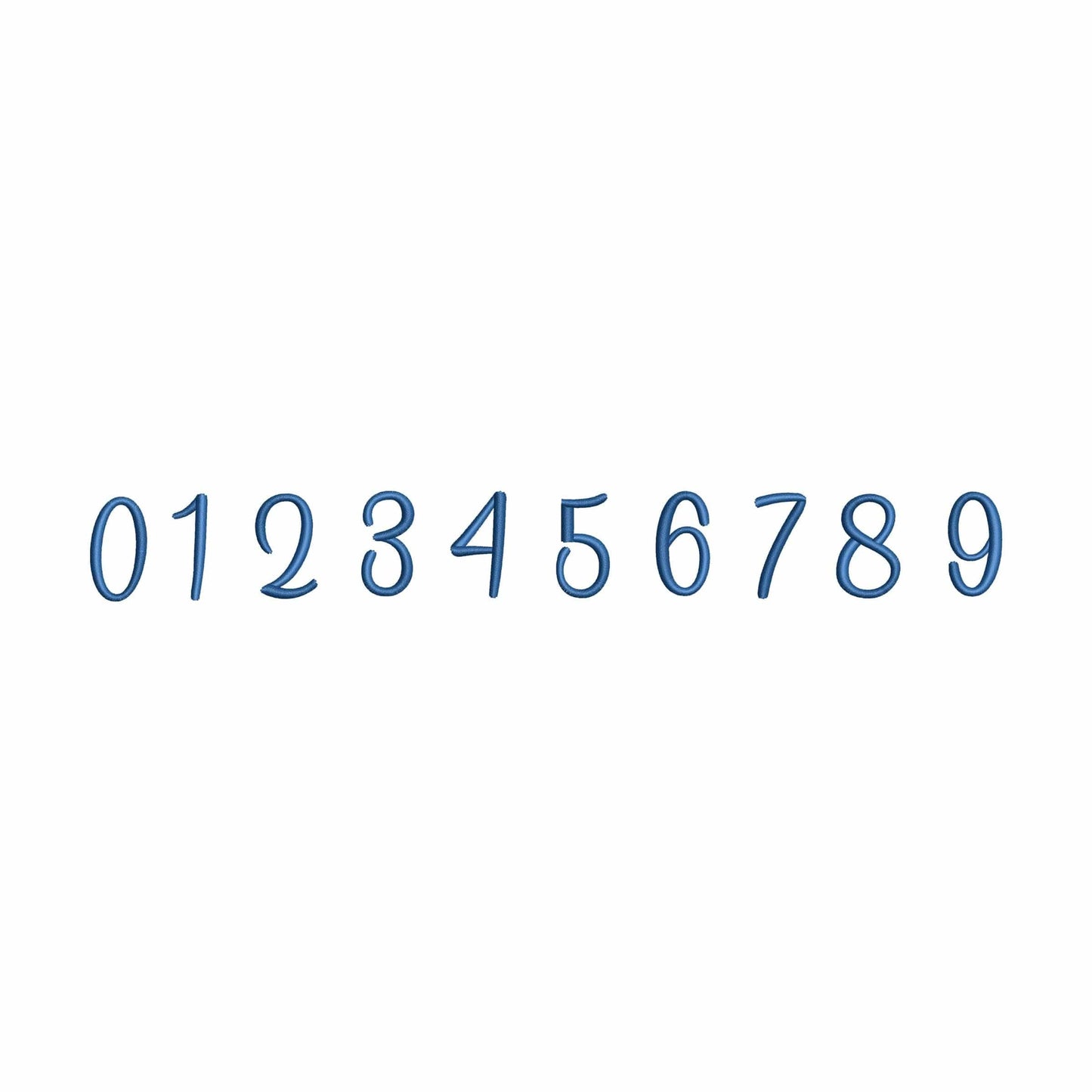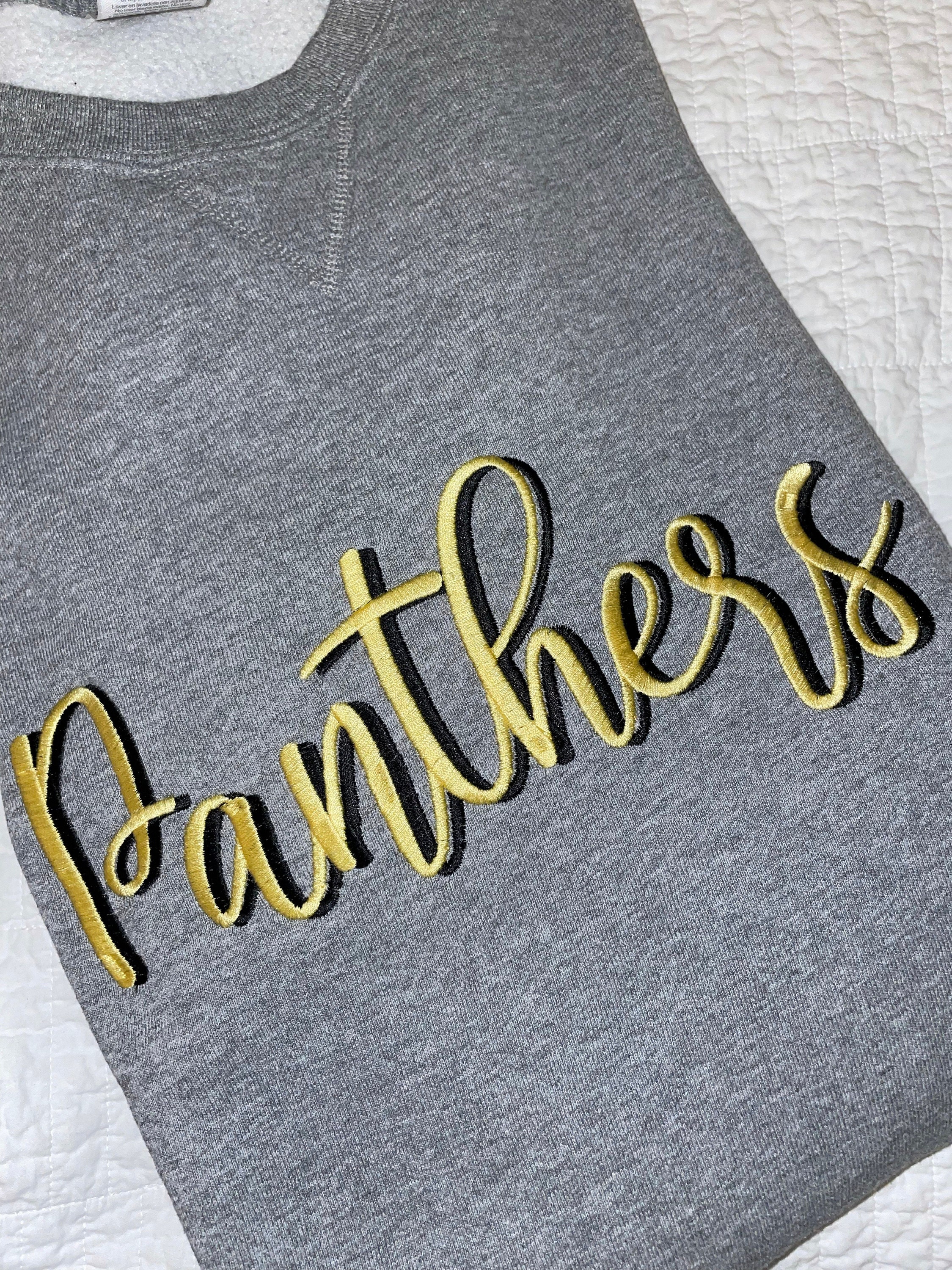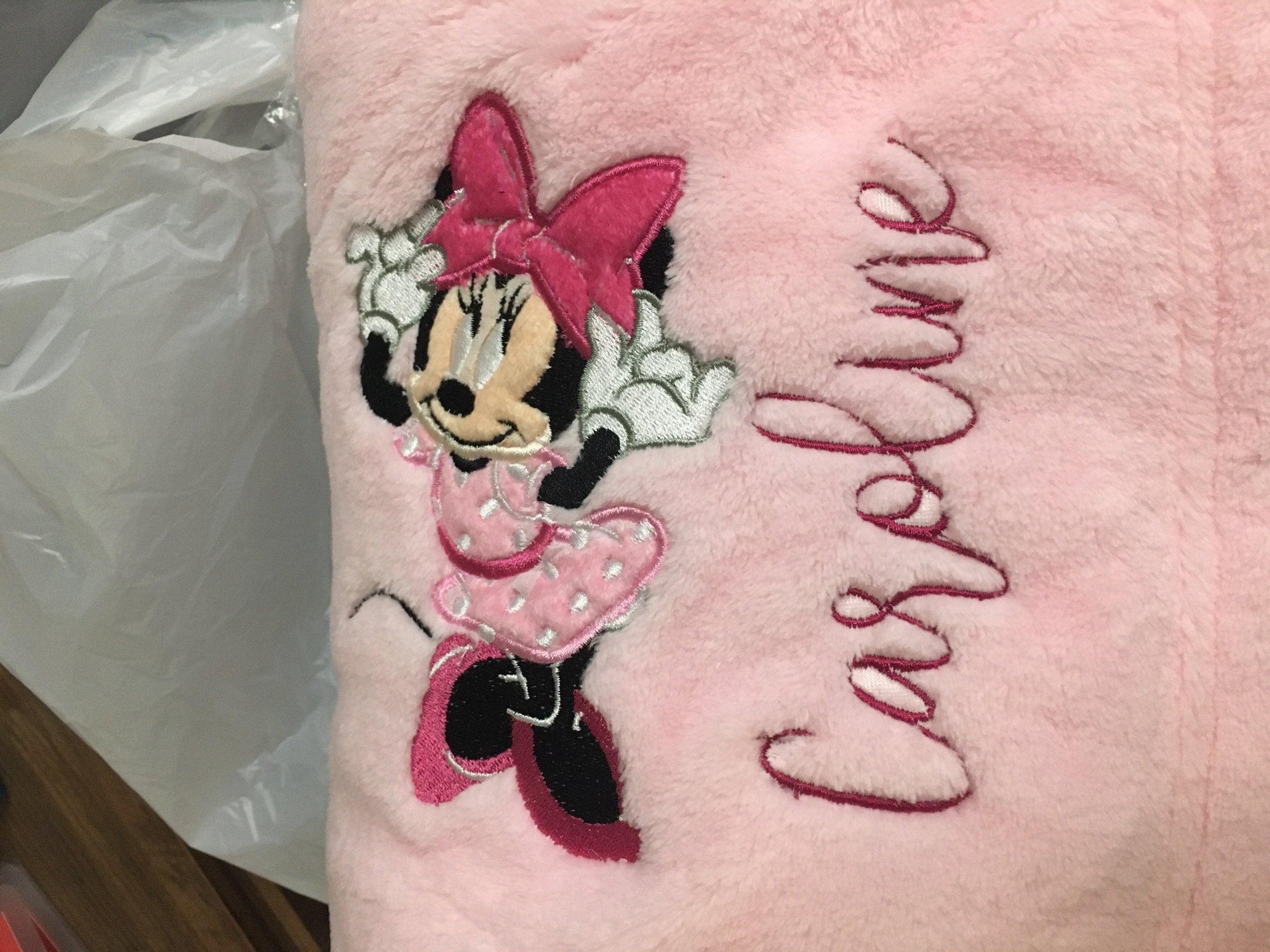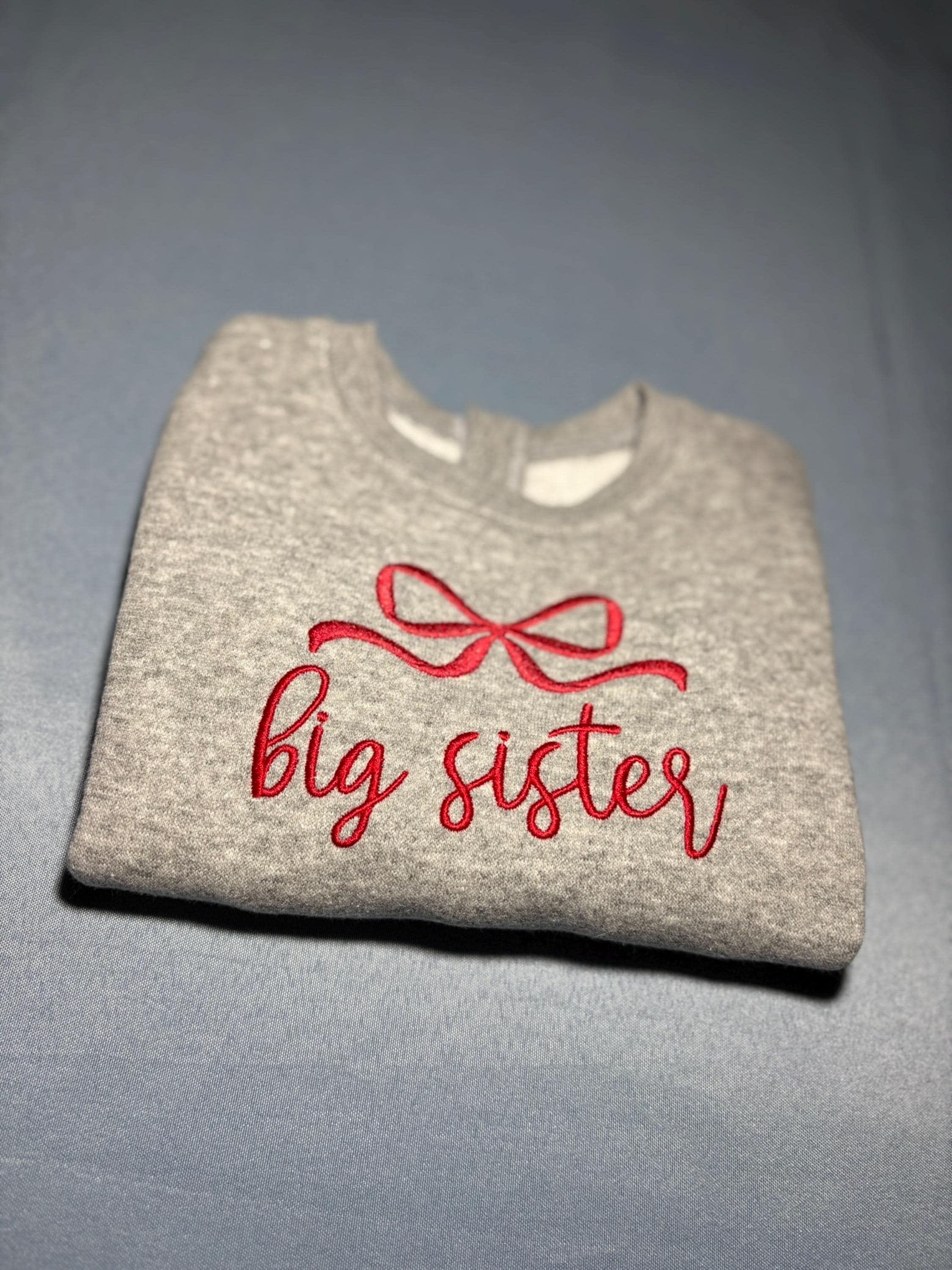
Diana - Embroidery font
• Included: A-Z (uppercase), a-z(lowercase), 0-9 (numbers)
This machine embroidery font works well for monograms, shirts, towels, gifts, and graceful personalized embroidery.